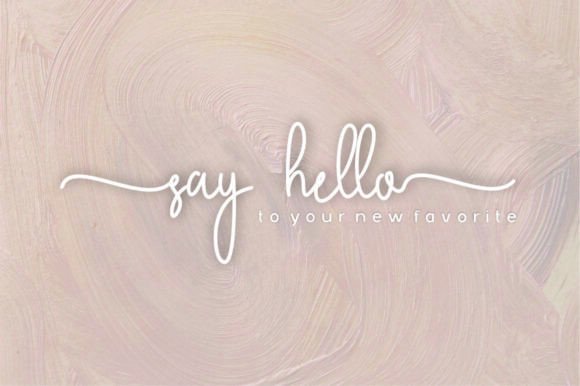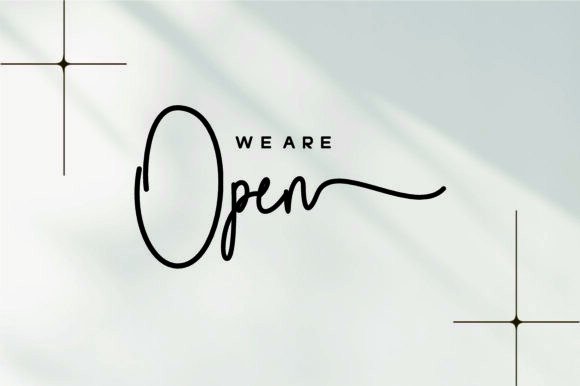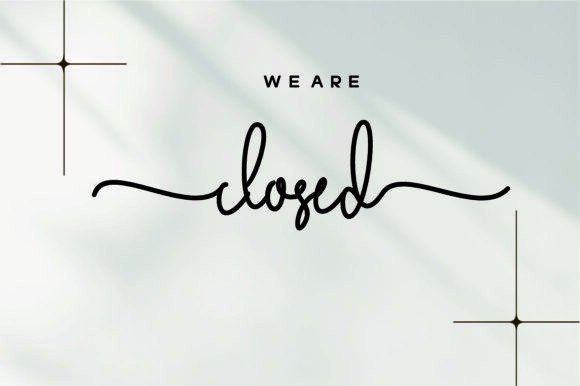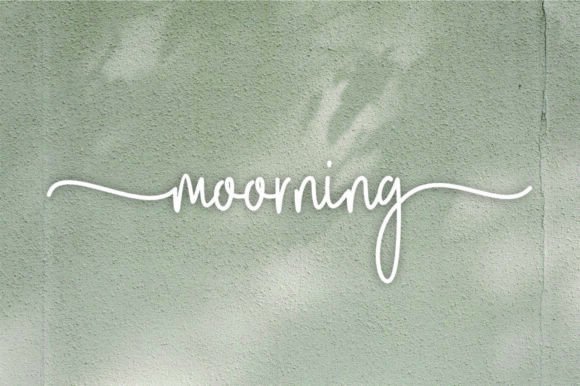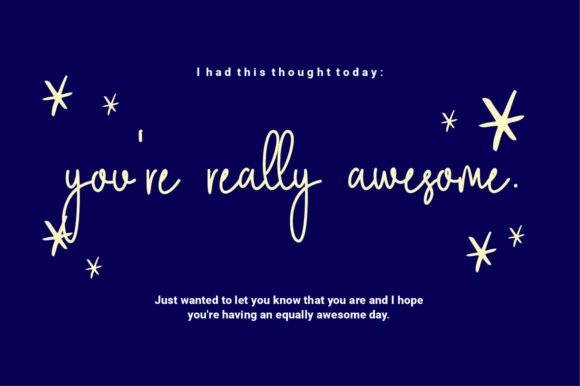
Introducing Biliani: The Elegant Script Font for Sophisticated Designs
In the world of typography, a well-crafted font can elevate a design project from ordinary to extraordinary. For designers and crafters seeking to add a touch of sophistication and charm to their work, look no further than Biliani, a beautiful script font that embodies elegance and refinement.
Inspired by Modern Calligraphy
Biliani is a script font that draws inspiration from modern calligraphy, characterized by smooth, sweeping curves and beautifully balanced letterforms. The font’s flowing lines and gentle strokes evoke a sense of fluidity and movement, as if written with a fine pen or brush. This elegant aesthetic makes Biliani perfect for a variety of design applications, including branding, wedding invitations, product packaging, and signature-style logos.
A Font that Combines Style and Legibility
One of the standout features of Biliani is its unique blend of stylish flair and legibility. Each character is carefully crafted with graceful strokes that mimic the fluidity of handwritten ink, delivering a personal yet refined feel. The font’s flowing curves and balanced letterforms ensure that text remains easy to read, even at smaller sizes, making it ideal for body text and headings.
Crafting a Luxurious Look
Biliani’s sophisticated design makes it an excellent choice for designers and crafters looking to add a luxurious touch to their work. Whether you’re creating a wedding invitation, a product label, or a brand identity, Biliani’s elegant script font is sure to impress. The font’s refined aesthetic pairs perfectly with a range of design styles, from classic and traditional to modern and contemporary.
Design Applications for Biliani
Biliani’s versatility makes it suitable for a wide range of design applications, including:
- Branding: Create a lasting impression with Biliani’s elegant script font, perfect for logos, business cards, and letterheads.
- Wedding Invitations: Add a touch of romance and sophistication to your wedding stationery with Biliani’s beautiful, flowing script.
- Product Packaging: Elevate your product packaging with Biliani’s luxurious aesthetic, ideal for high-end products and premium brands.
- Signature-Style Logos: Create a unique and memorable logo with Biliani’s elegant script font, perfect for businesses and individuals seeking to establish a professional brand identity.
Tips for Using Biliani Effectively
To get the most out of Biliani, consider the following tips:
- Pair with contrasting fonts: Combine Biliani with a clean, sans-serif font to create visual interest and emphasize key design elements.
- Experiment with colors: Biliani’s elegant design looks stunning in a range of colors, from metallic gold and silver to rich jewel tones.
- Pay attention to spacing: Ensure that your text has sufficient spacing to allow Biliani’s flowing curves to shine.
Biliani is an exceptional script font that offers designers and crafters a unique opportunity to add a touch of sophistication and elegance to their work. With its smooth, sweeping curves and beautifully balanced letterforms, Biliani is the perfect choice for a wide range of design applications. Whether you’re creating a brand identity, wedding stationery, or product packaging, Biliani is sure to impress.